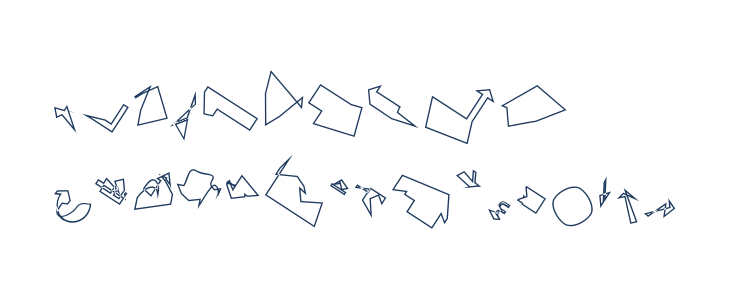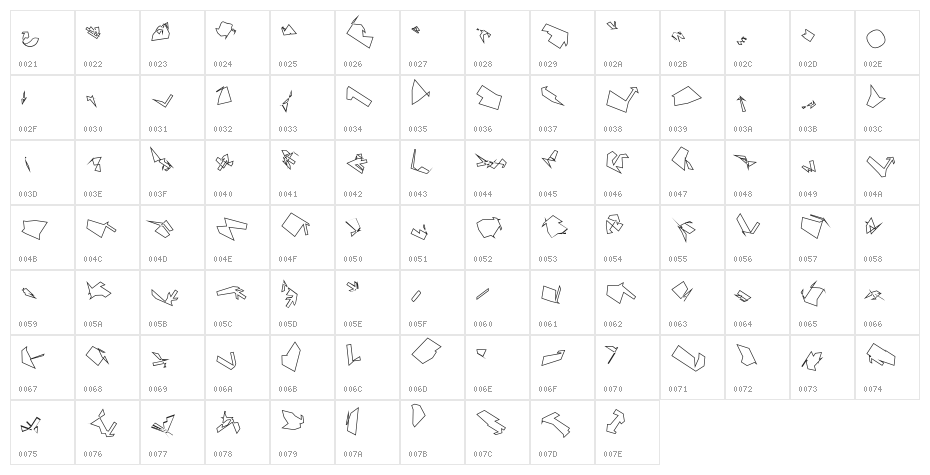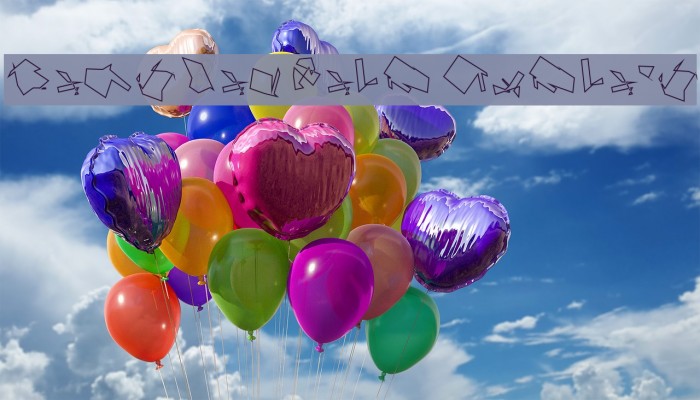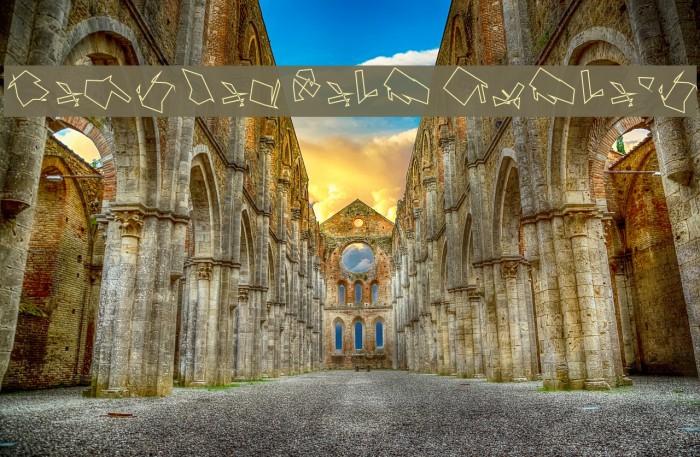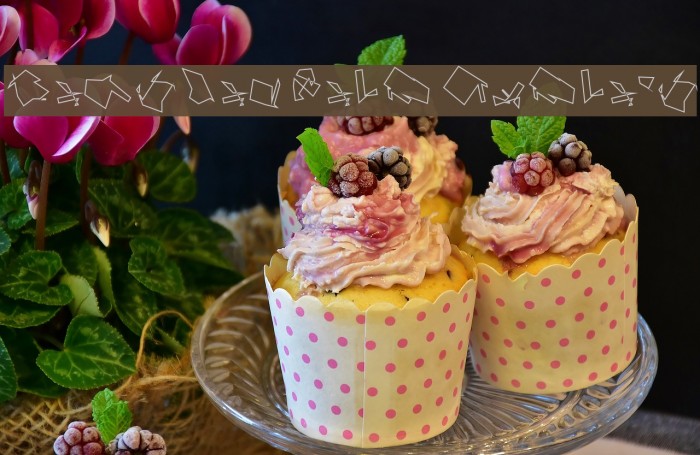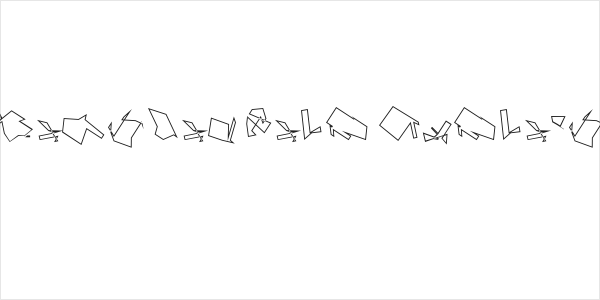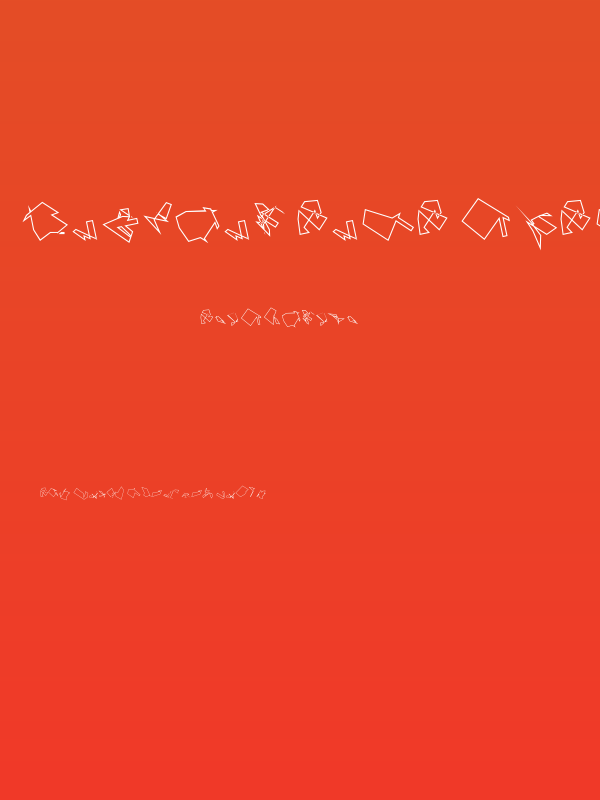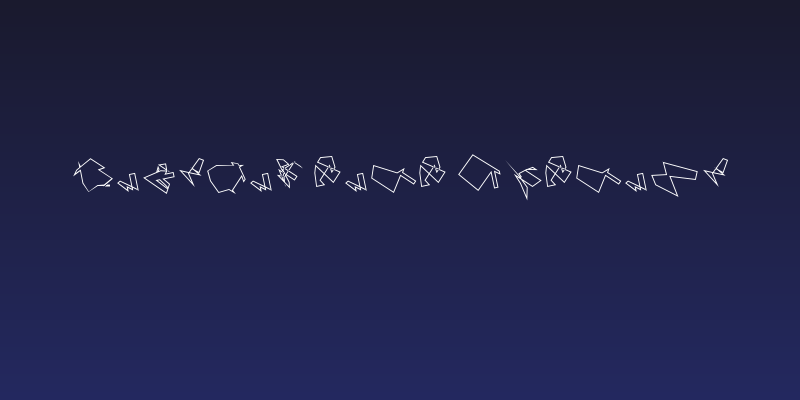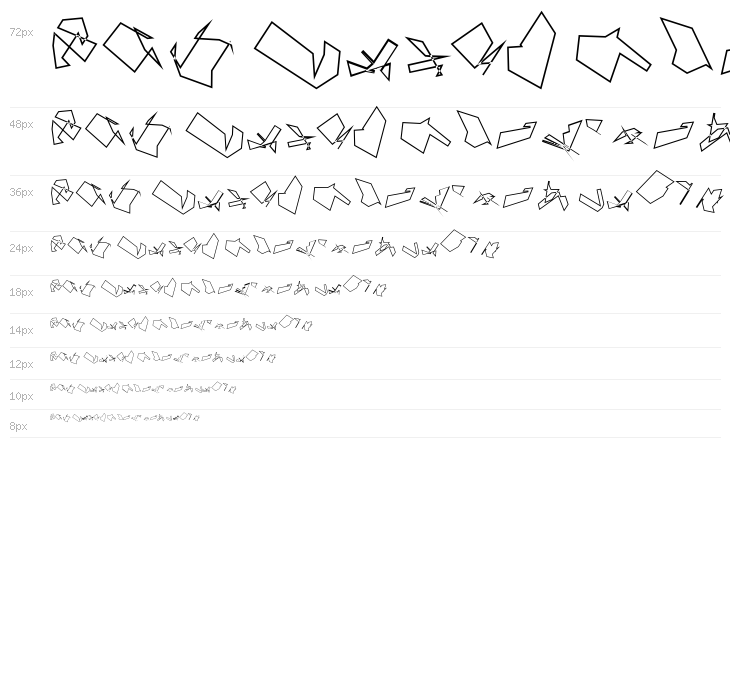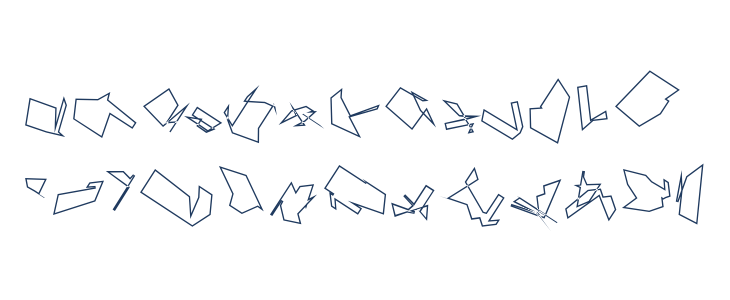
Siberia Tilt Outline Font
Siberia Tilt Outline Description
This font features a highly abstract and geometric design, characterized by sharp angles and irregular shapes. Each character is uniquely crafted with a series of intersecting lines and points, creating a dynamic and fragmented appearance. The outline style adds to its distinctiveness, making it stand out with a bold and edgy look. The font lacks traditional letterforms, instead opting for a more artistic and unconventional approach. Its chaotic yet structured design makes it suitable for creative and modern projects that aim to capture attention and convey a sense of innovation.